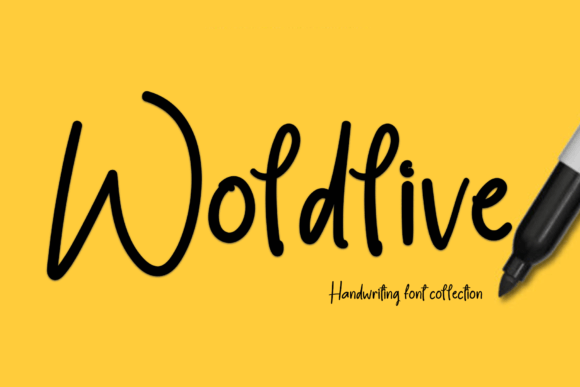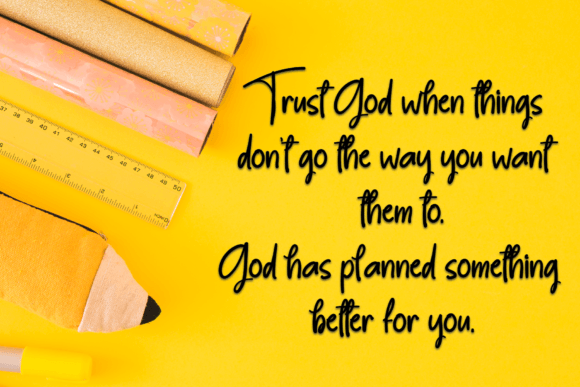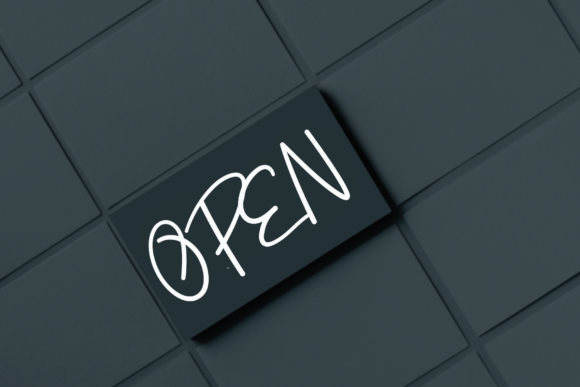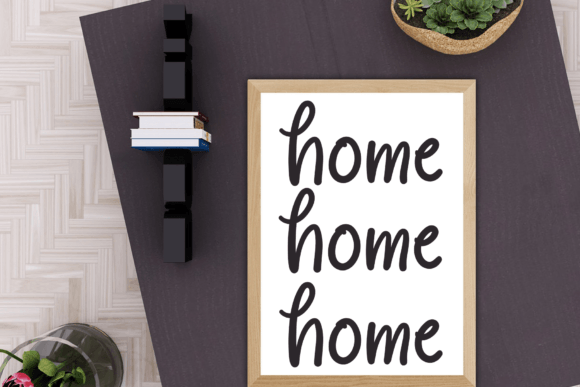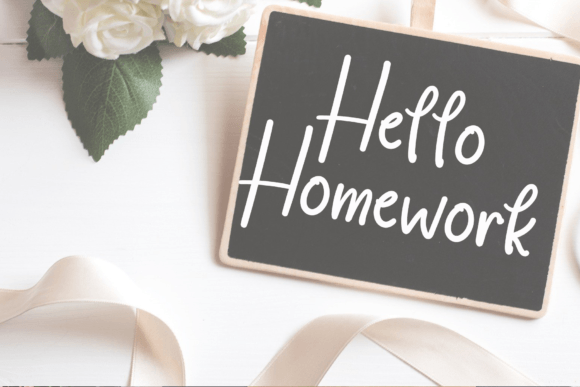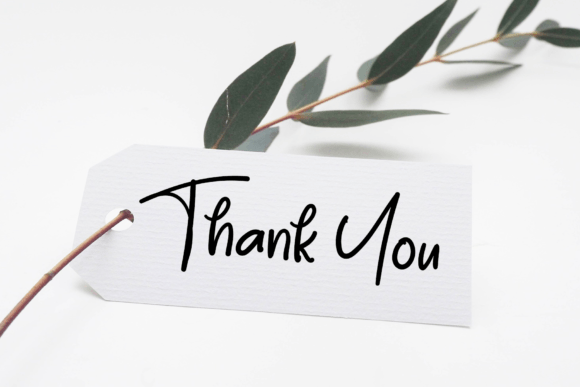
Woldlive Font
About Woldlive Font
“Woldlive” is a cool handwritten font that embodies a modern vibe with a clean and balanced form. Inspired by classic calligraphy, this font strikes a harmonious balance—neither too thin nor too thick, offering a varied and versatile style that enhances the aesthetic appeal of your projects.
The charm of “Woldlive” lies in its ability to add a contemporary touch to your designs while maintaining a sense of balance and clarity. Its handwritten style exudes a sense of modernity and elegance, making it suitable for a wide range of design applications.
Whether you’re working on branding, invitations, quotes, posters, social media graphics, logos, or any project that calls for a touch of modern calligraphy, “Woldlive” is the typeface that can bring your ideas to life.
In the realm of design, achieving the right balance is crucial, and “Woldlive” excels in this regard. It ensures that your projects not only look visually appealing but also convey a feeling of modernity and sophistication, leaving a lasting and impactful impression on your audience.
Embrace “Woldlive” with enthusiasm and experience how it enhances your creative endeavors with its modern vibe and spotless form, making your projects more visually appealing and captivating, regardless of the specific context or application.